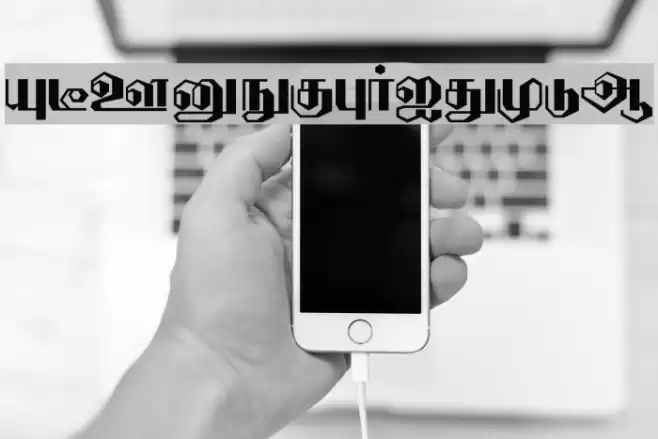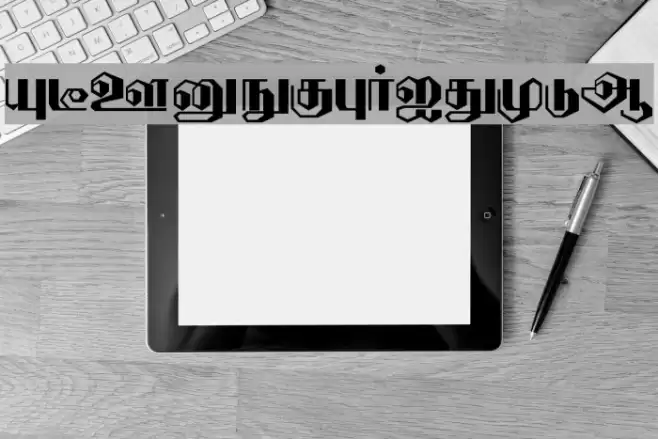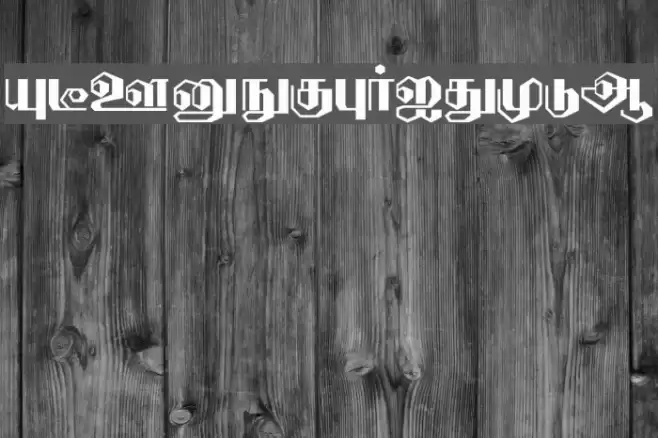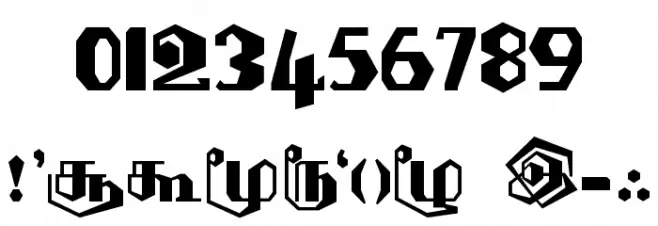
DenukaPC Font
DenukaPC Description
This font features a bold and striking design, characterized by its angular and geometric shapes. The characters have a strong presence, with thick strokes and sharp edges that create a sense of authority and impact. The numerals and special characters maintain the same boldness, ensuring consistency throughout. The font's style is reminiscent of traditional scripts, yet it incorporates modern elements that make it suitable for contemporary use. The overall appearance is both decorative and functional, making it ideal for projects that require a strong visual statement.
A bold, geometric font with angular shapes and strong visual impact from Uncategorized fonts.
- Proposed Projects: Ideal for posters, logos, headlines, and branding materials that require a bold and authoritative presence.